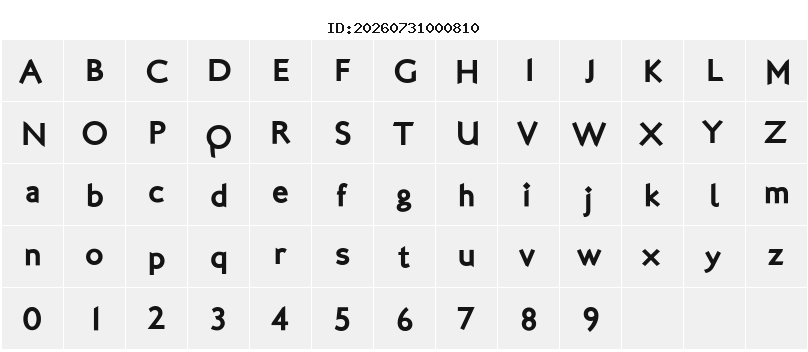
LondonTwo Preview
• Font Name: LondonTwo
About LondonTwo.ttf
LondonTwo.ttf is a modern, elegant sans-serif font designed for ultimate readability and visual harmony. Perfect for branding, headlines, web design, and print materials.